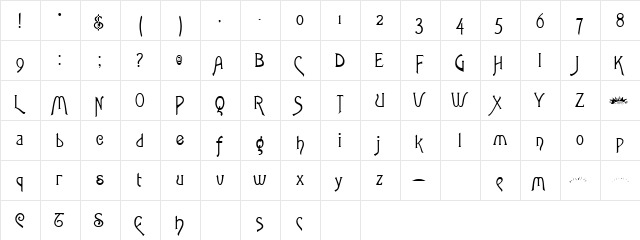
ROWLEY Regular
Design Context for ROWLEY Typeface
ROWLEY is a composed and adaptable typeface that performs quietly and consistently across a wide range of design contexts.